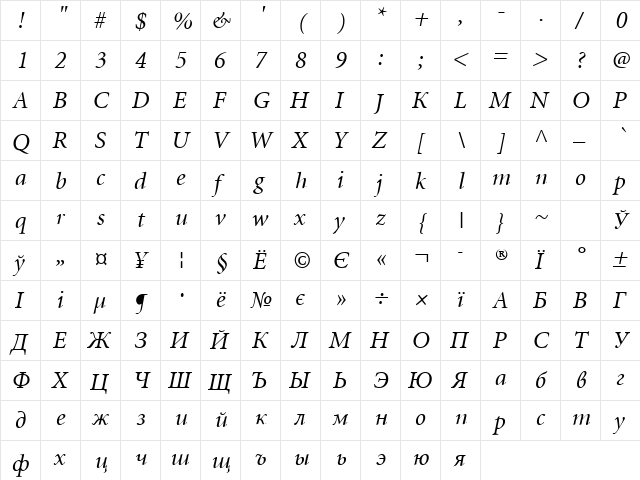
Miniature Italic Font Preview
Miniature Italic
Design Context for Miniature Typeface
Miniature offers clean, dependable letterforms without strong stylistic allegiance, making it a practical choice for designers who need flexibility. Its italic angle brings a sense of urgency and motion to the letterforms.